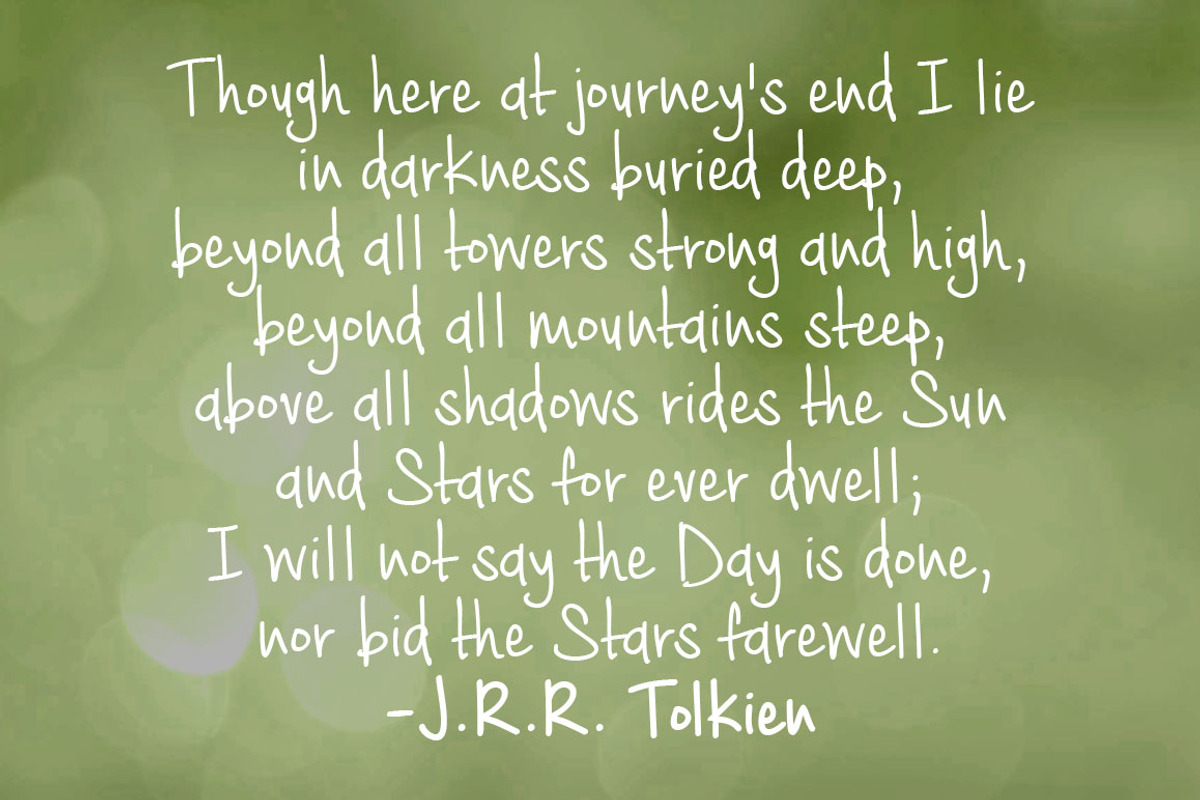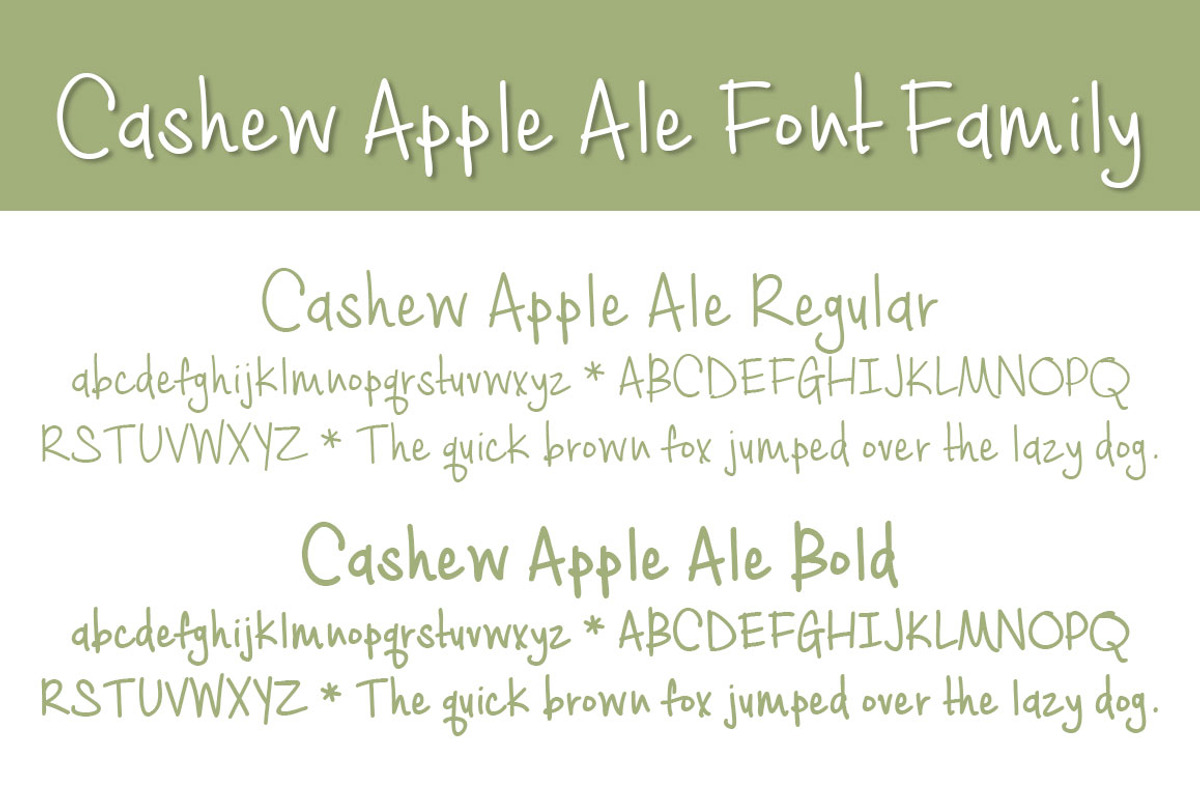
Cashew Apple Ale Font Family
Cashew Apple Ale Font Family by Brittney Murphy Design is a font selected for branding, posters, packaging, typography.
- The Cashew Apple Ale font family comes with two weights- regular and bold.
- Cashew Apple Ale Regular
- Cashew Apple Ale Bold
Cashew Apple Ale Font Family by Brittney Murphy Design fits naturally into Branding, posters, packaging, typography.